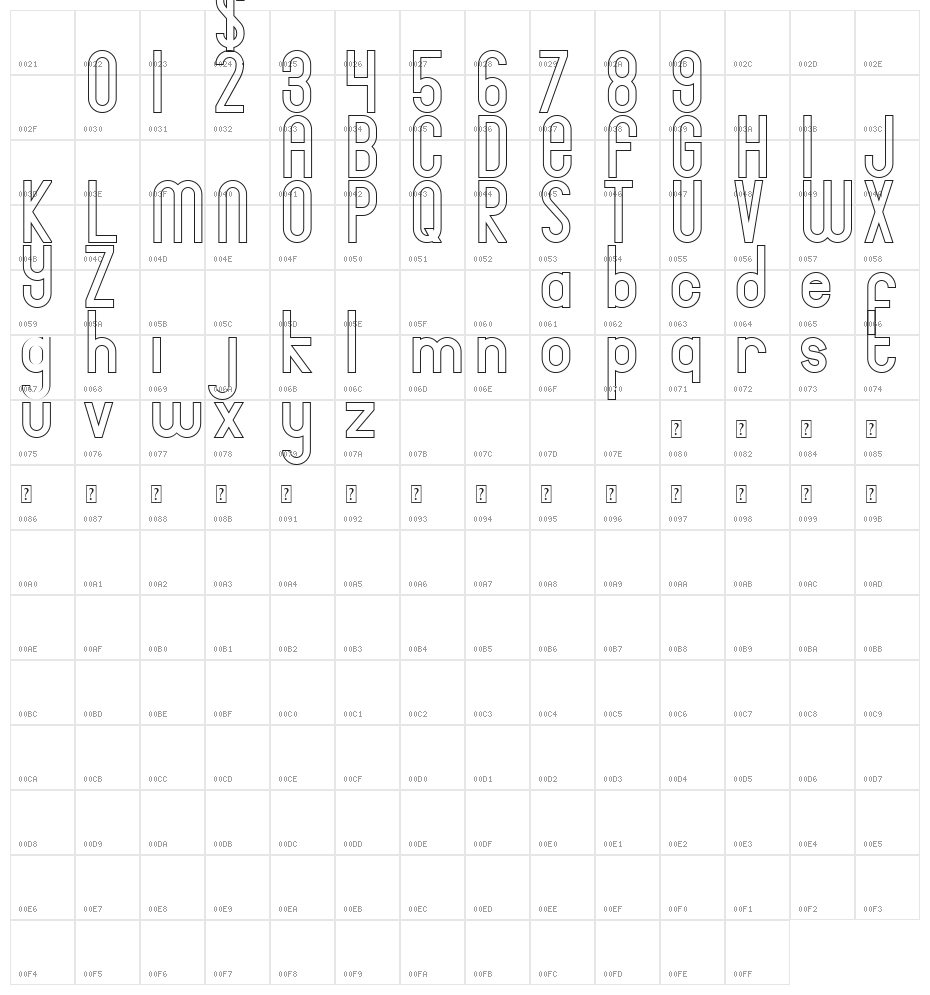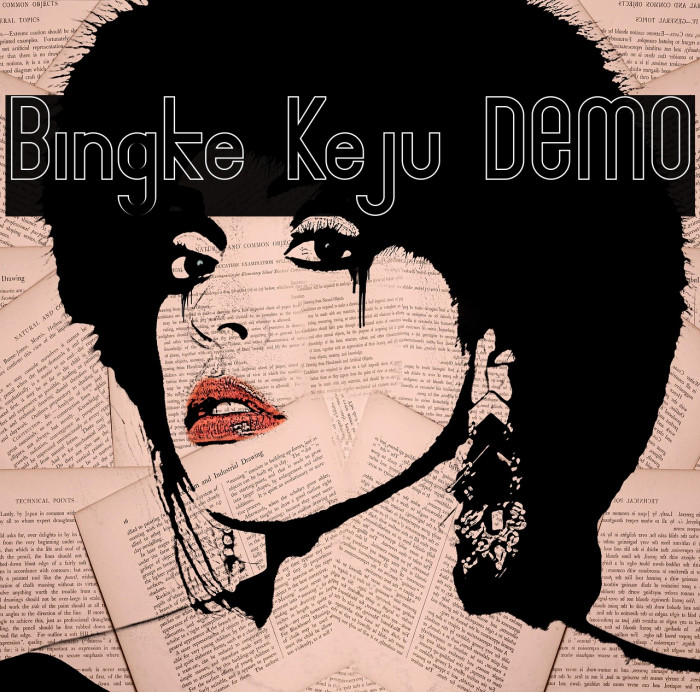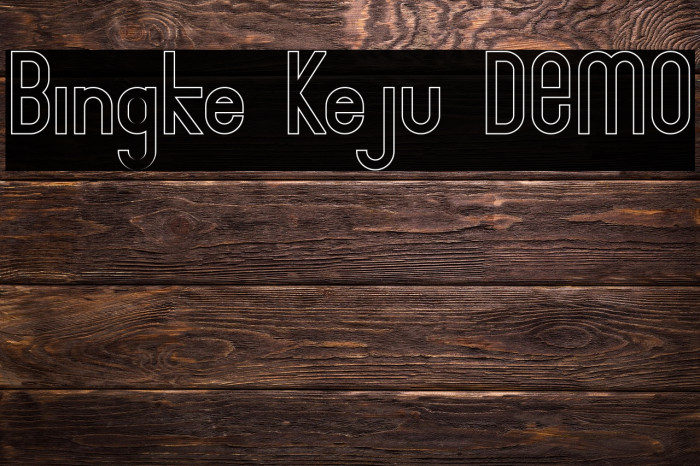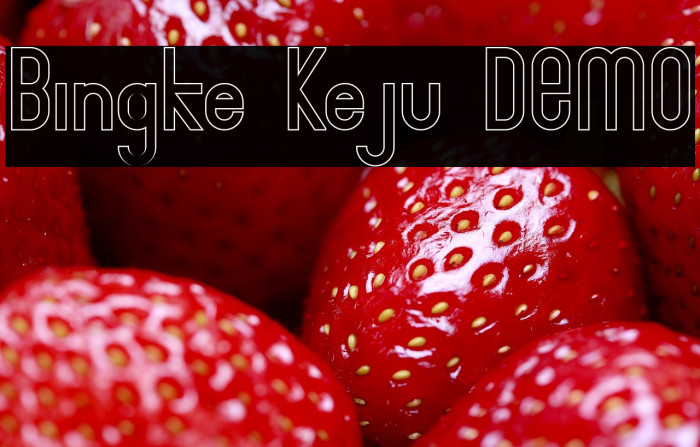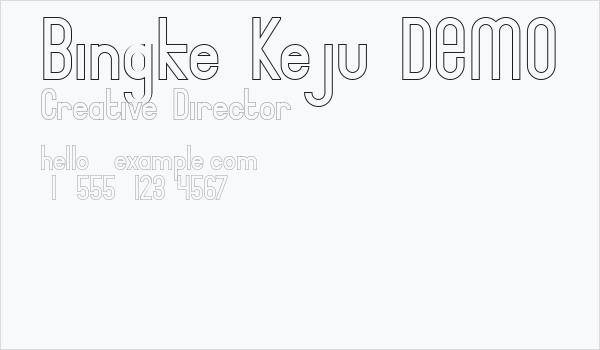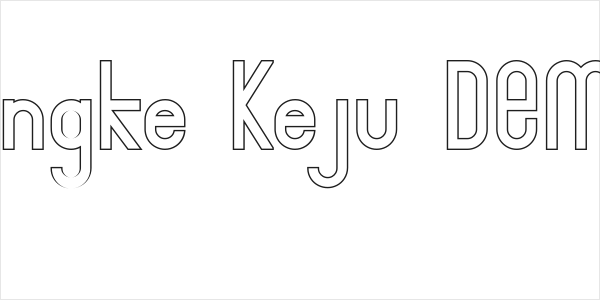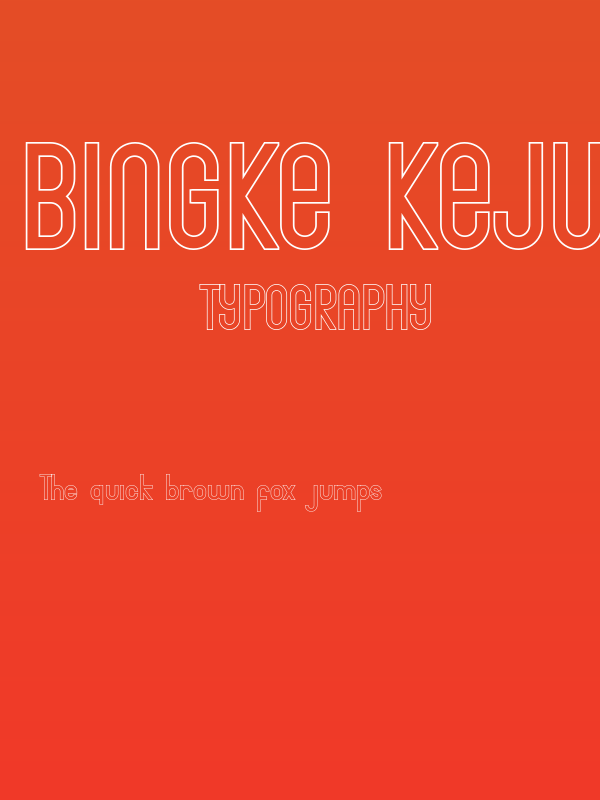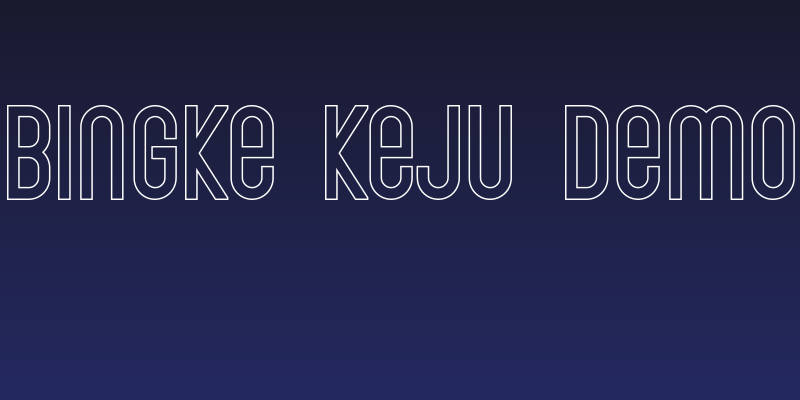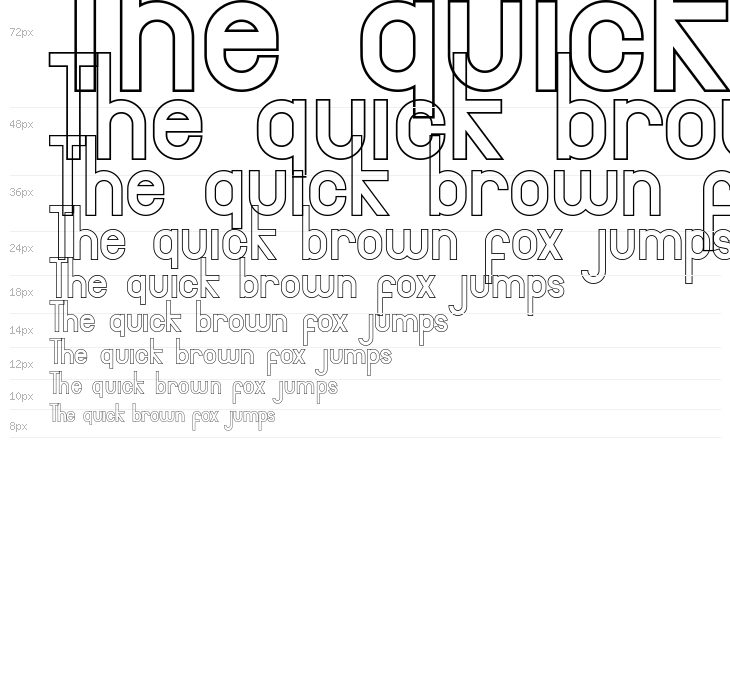
Bingke Keju DEMO Font
Bingke Keju DEMO Description
This font features a modern, geometric design with clean, uniform lines and a hollow interior. The uppercase and lowercase letters are consistent in style, creating a cohesive look. The numbers and special characters maintain the same aesthetic, providing a seamless integration across all characters. The font's structure is bold and eye-catching, making it suitable for display purposes. Its open design allows for creative use of color and background, enhancing its visual appeal. The overall style is contemporary, with a focus on simplicity and clarity.
| Proposed Projects | Ideal for branding, posters, headlines, and creative design projects that require a bold and modern aesthetic. |